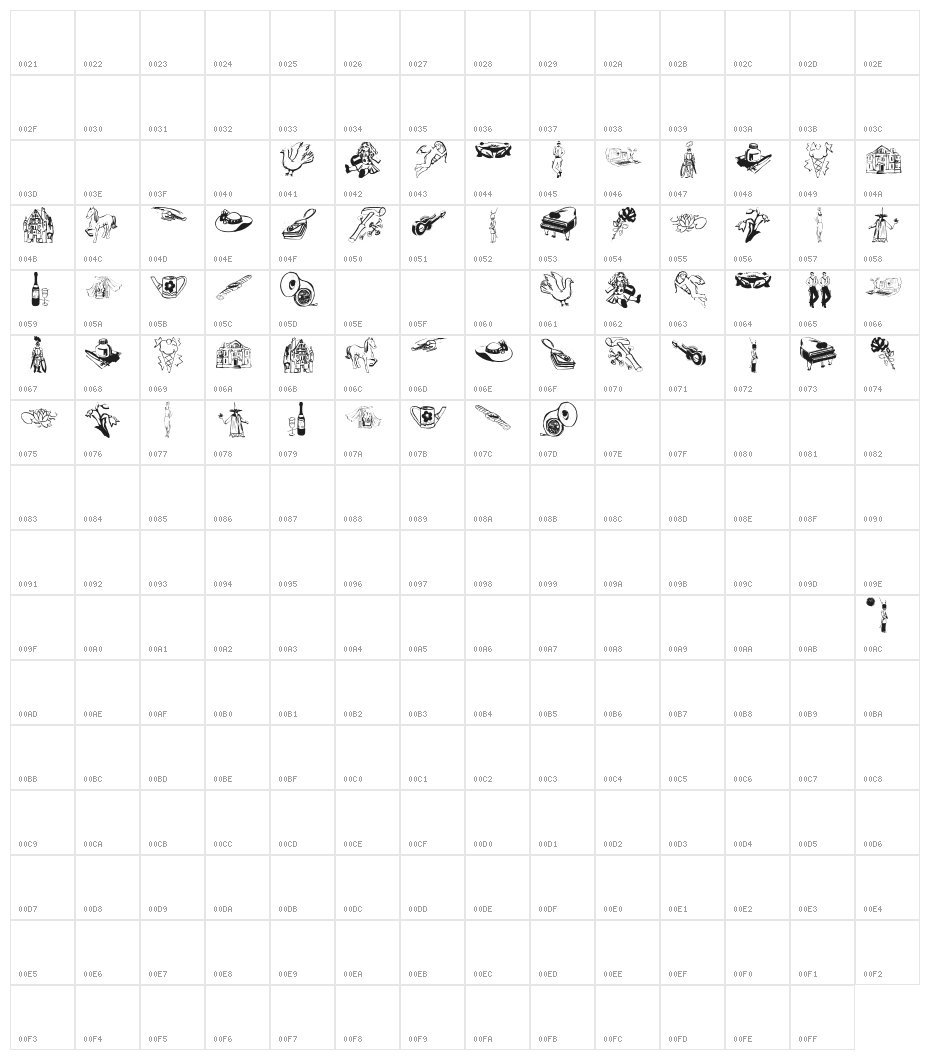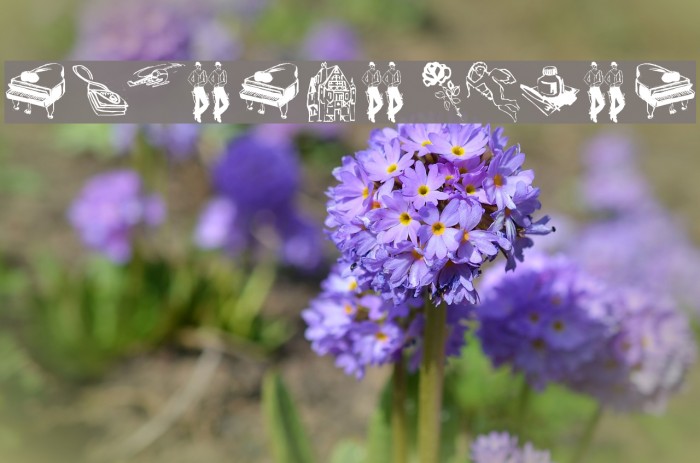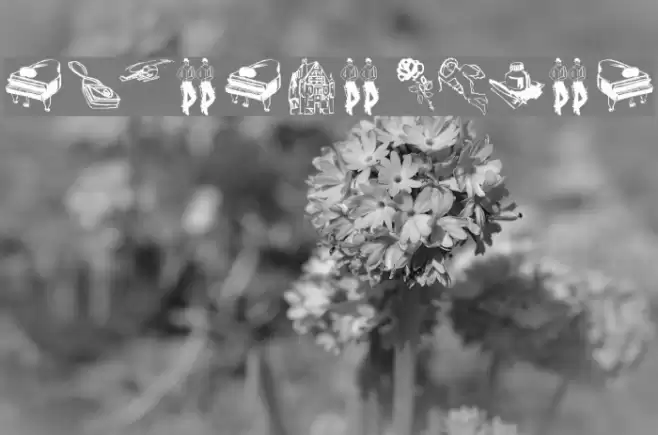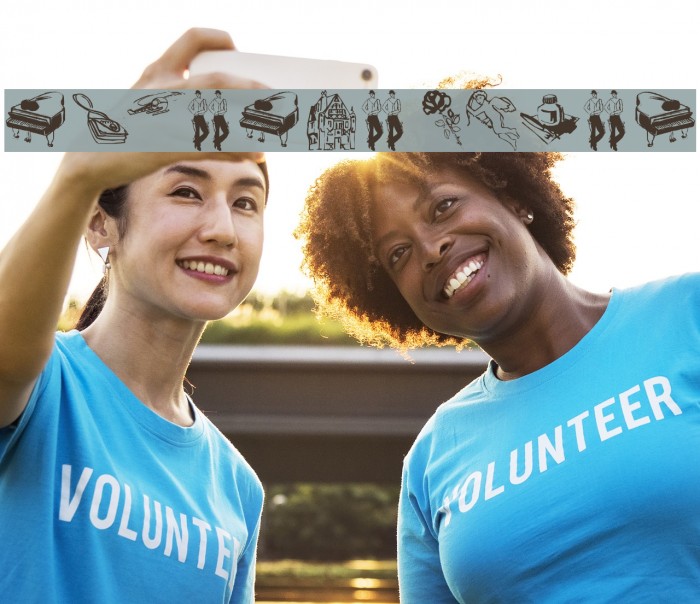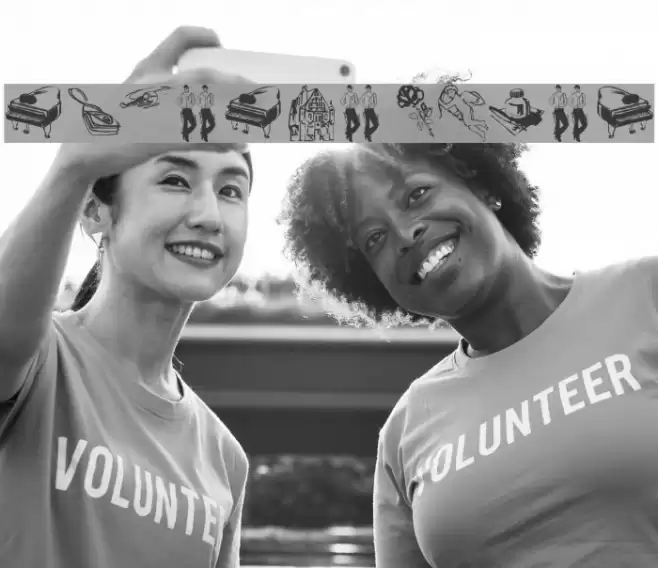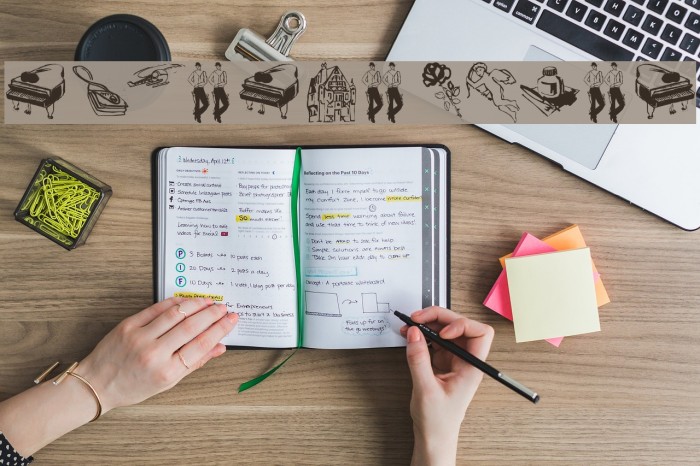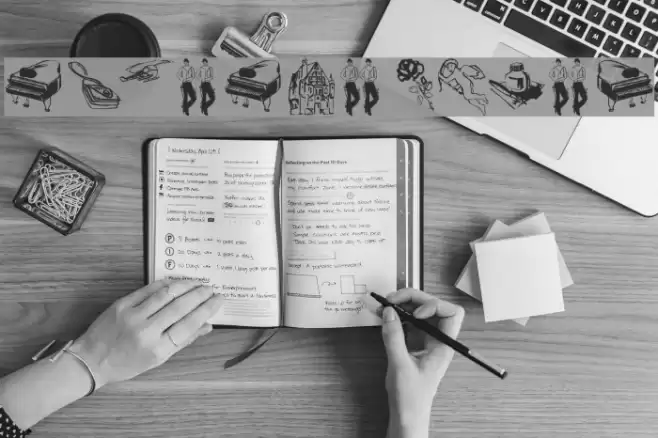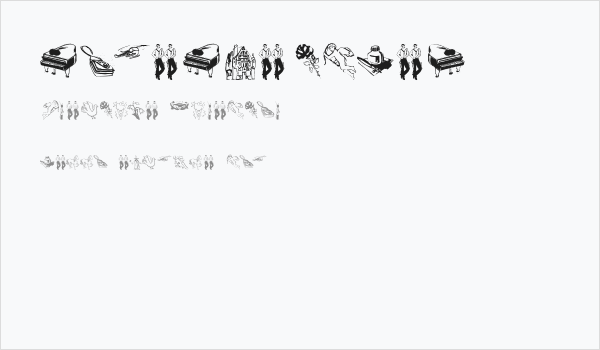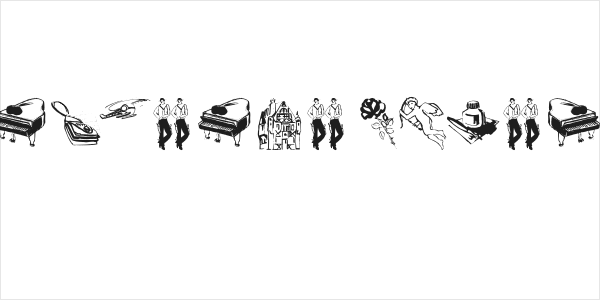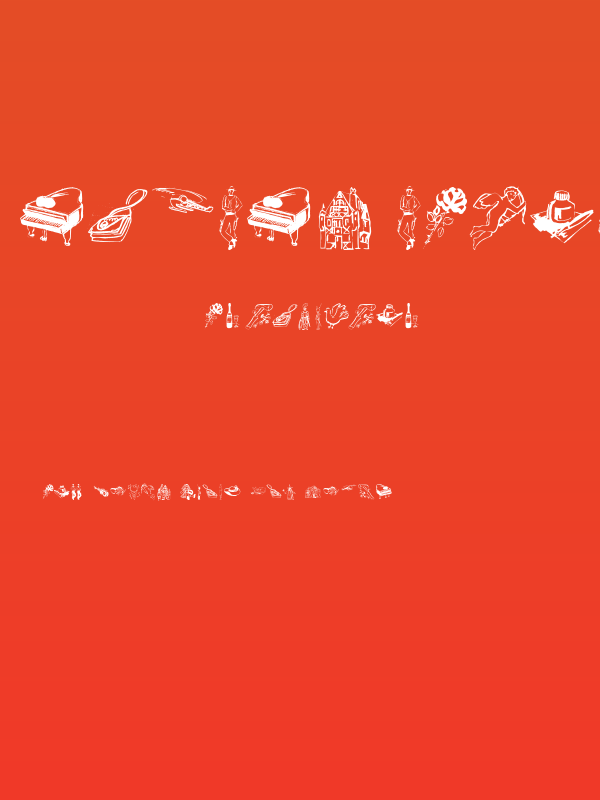
SomeSketches Font
SomeSketches Description
A decorative display set featuring hand-drawn sketch illustrations for each character, with whimsical and varied line art representing objects, people, and animals instead of traditional letterforms.
| Overall Style | Decorative, Artistic, Whimsical |
| Use Case | Logos, Posters, Invitations, Artistic Headlines |
| Proposed Projects | ChildrenΓ’β¬β’s books, creative posters, invitations, art projects, branding for artistic or whimsical businesses. |